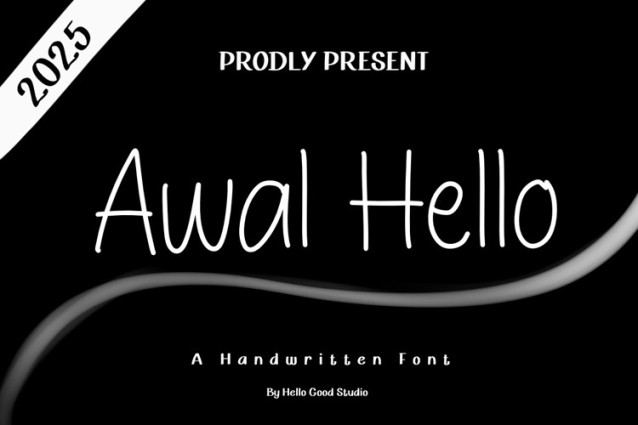
Awal Hello Font
Awal Hello Font is a simple and friendly handwritten font. Its natural and unique style makes it incredibly fitting to a large pool of designs. The only limit is your imagination!